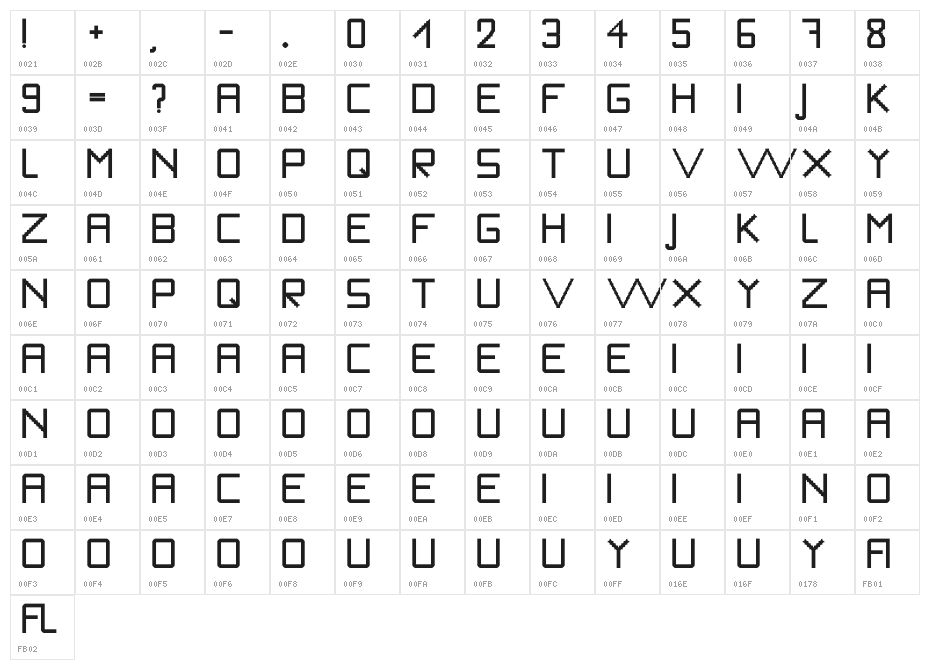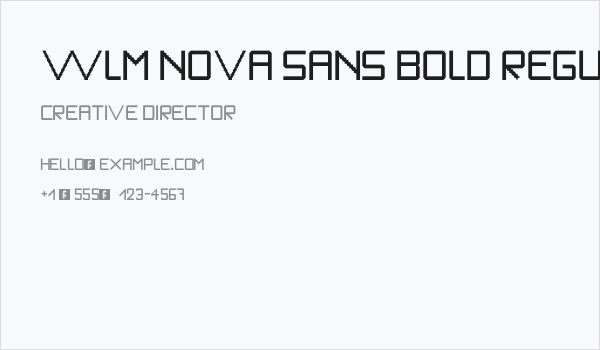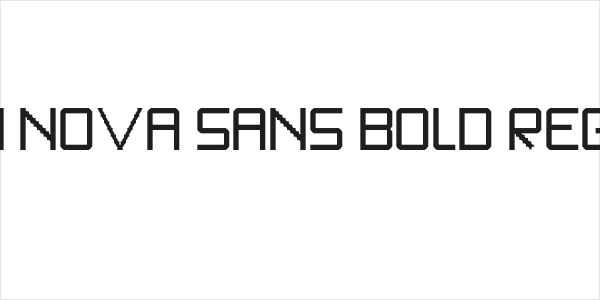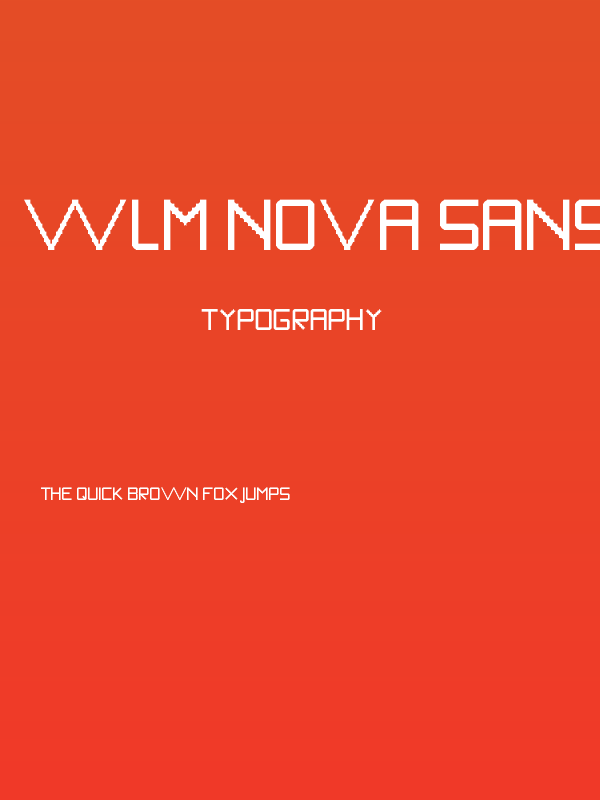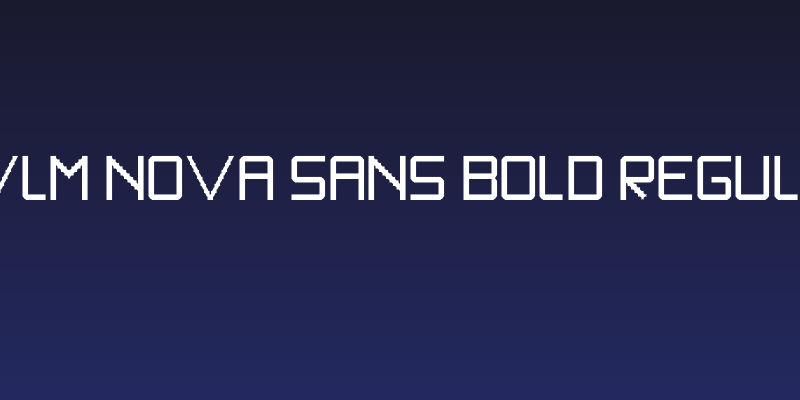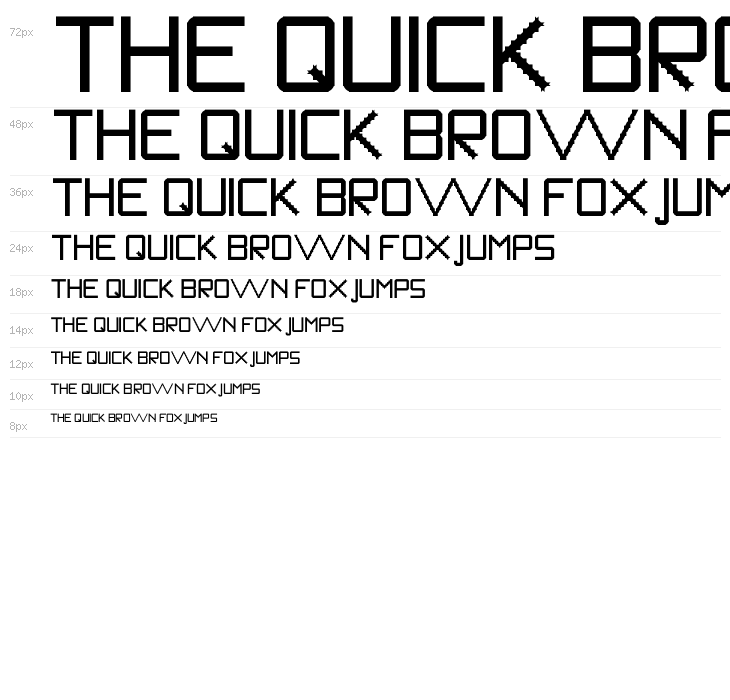
WLM Nova Sans Bold Regular Font
WLM Nova Sans Bold Regular Description
This font features a bold and geometric design with a modern and futuristic aesthetic. The characters are constructed with straight lines and sharp angles, giving them a digital or pixelated appearance. The uppercase and lowercase letters maintain a consistent height, contributing to a uniform look. The numbers and special characters follow the same design principles, ensuring cohesion across all elements. The font's structure is clean and minimalistic, making it suitable for digital displays and tech-oriented projects. Its boldness enhances readability, while the geometric shapes add a distinctive style.
| Use Case | Headlines, Logos, Digital Displays |
| Proposed Projects | Ideal for tech branding, digital interfaces, video game design, and futuristic posters. |